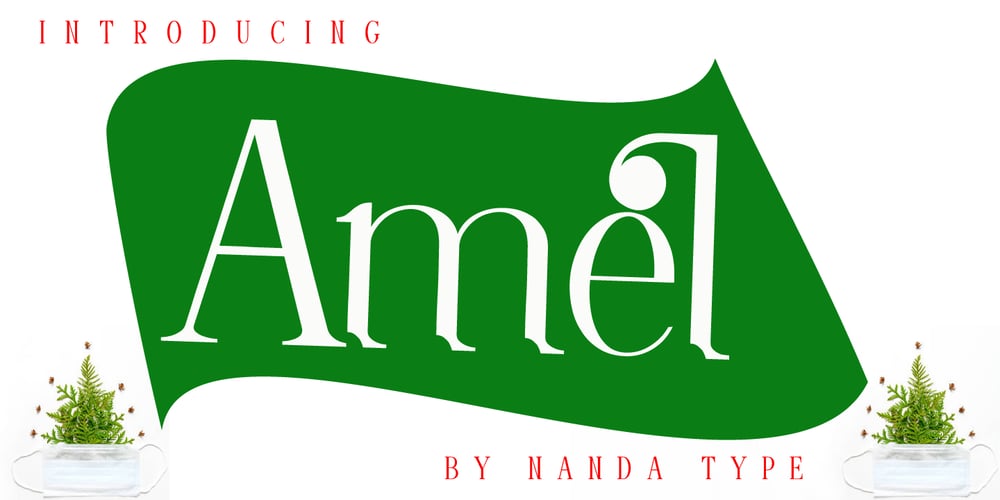
Amel
Amel font
Amel Font Family was designed by Nanda Type and published by Nandatype Studio. Amel contains 1 styles and family package options. Amel is a modern display font. This font will look great on a variety of design ideas, perfect for feminine logo signs, fashion & editorial design heads, branding projects, Apparel Branding, packaging, magazine titles, advertisements, T-shirts, postcards, valentines, posters, invitations, weddings, branding projects, social media posts, magazines, book covers, and more.This will add a fun and friendly touch to any of your projects! This font is PUA encoded which means you can access all the glyphs and sweeps easily and more.